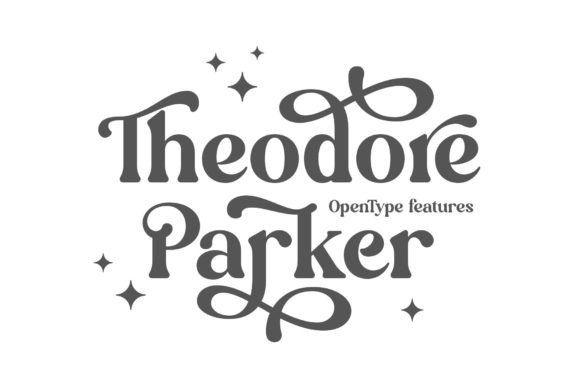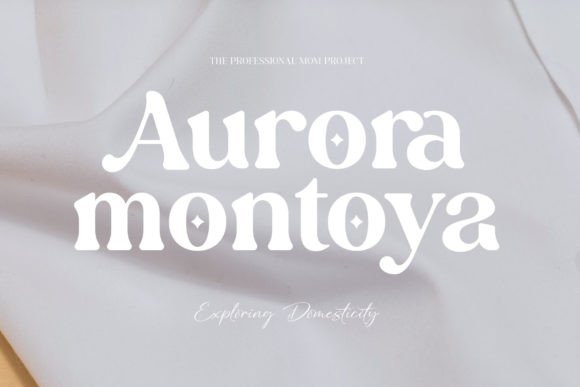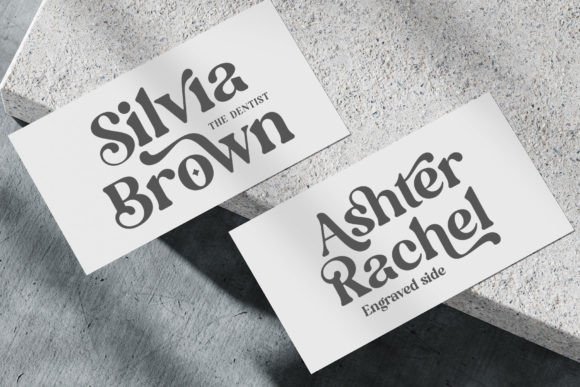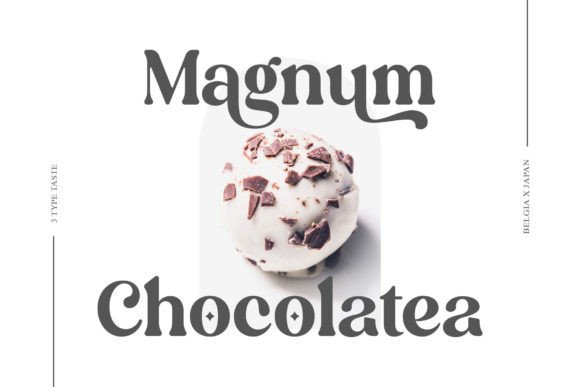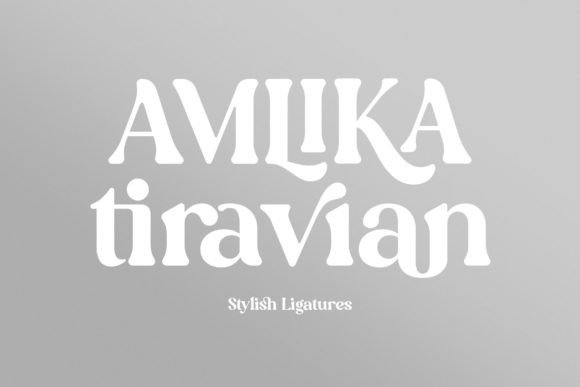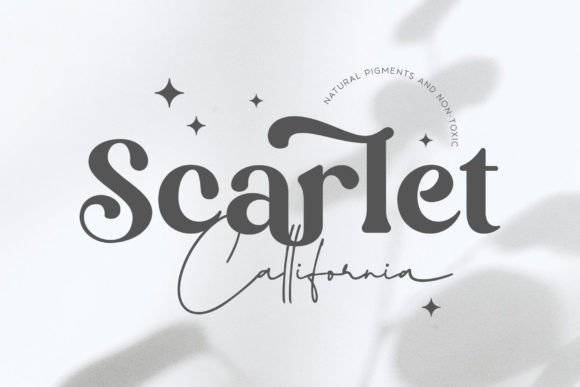
Introduction to Mandira Font
Have you ever stared at a blank canvas, eager to bring a creative project to life, but struggling to find the perfect font to set the tone? That’s where the Mandira Font comes in – a game-changing serif font that adds a touch of sophistication to any design. As a designer, you know the importance of selecting a high-quality font that elevates your work and communicates your message effectively.
With its unique blend of modern retro charm and minimalist style, the Mandira Font is an absolute gem for designers seeking a versatile and stylish design resource. Whether you’re working on a branding project, creating digital content, or crafting a visual identity, this font is sure to become your new go-to. And the best part? You can download it for free, giving you the freedom to experiment and push the boundaries of your creativity.
Key Features of Mandira Font
- High-quality design for creative projects: Mandira Font is a professional and stylish font ideal for various creative projects, including branding, advertising, and graphic design.
- Perfect for design projects: With its elegant and sophisticated design, Mandira Font is ideal for use in various design projects, including logos, brochures, and business cards.
I recently stumbled upon the Mandira Font, and I must say it’s a great addition to any designer’s collection. As a design enthusiast, I appreciate high quality fonts that can elevate a creative project to the next level.
- ✨ Unique and creative style that sets it apart from other fonts
- ✨ Easy to read and use in a variety of contexts
- ⚠️ Limited number of weights and styles available
- ⚠️ May not be suitable for very small text sizes
Overall, I’m impressed with the Mandira Font. It’s a solid design resource that can add a touch of sophistication to any creative project. While it may have some limitations, I think it’s definitely worth checking out for any designer looking for a high-quality font to add to their collection.
Mandira Font is perfect for use in wedding invitations, business cards, and other formal documents. It’s also great for use in creative projects, such as graphic novels and children’s books.